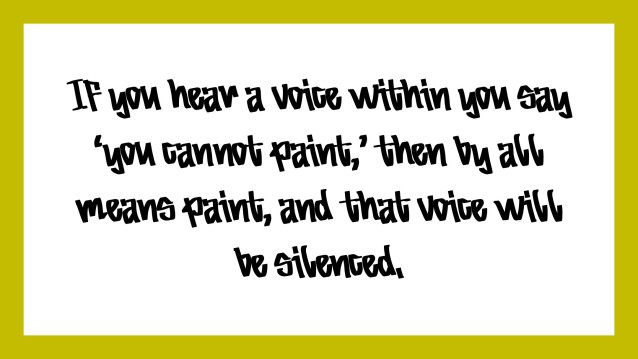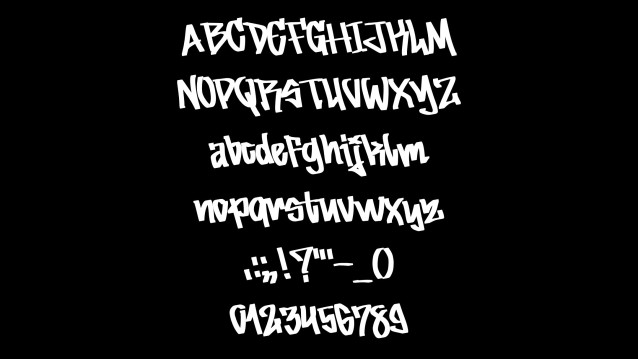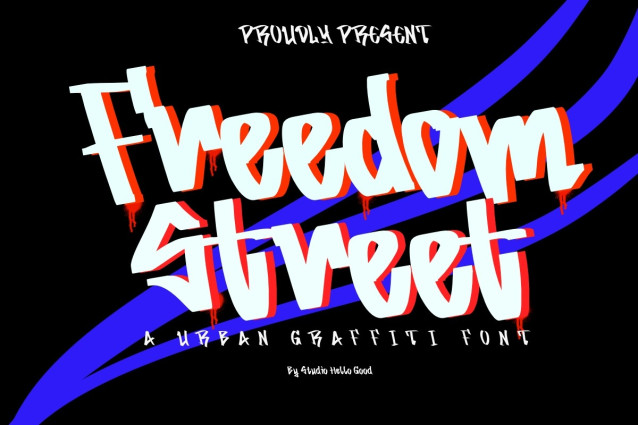
Freedom Street Font
Freedom Street Font a typeface that embodies the spirit of the streets with its bold and unapologetic style. This handdrawn font takes inspiration from urban street art, blending rough scribbles with cool monoline lettering to create a display font that’s as rebellious as it is engaging. Each stroke of Freedom Street captures the freestyle energy of graffiti artists and the boldness of an underground culture. It’s not just a font; it’s a statement piece that screams individuality and freedom.